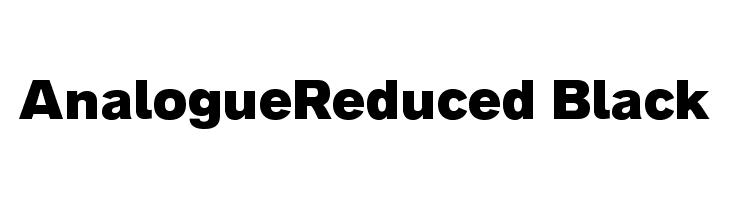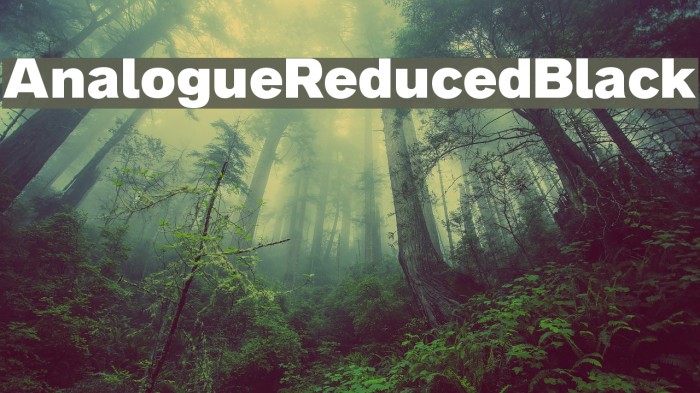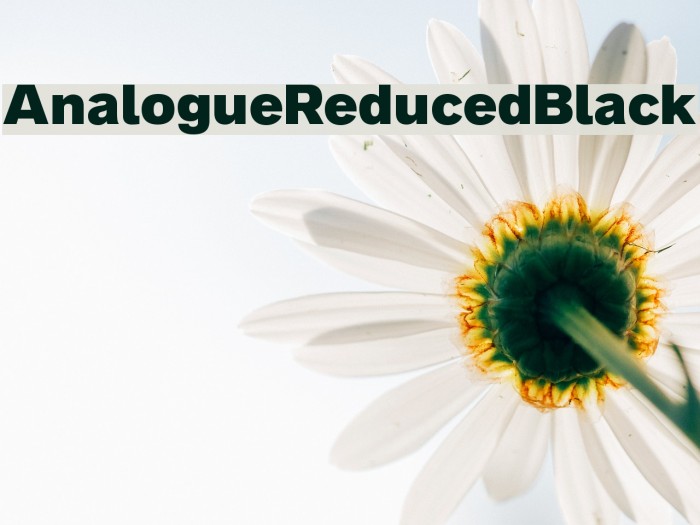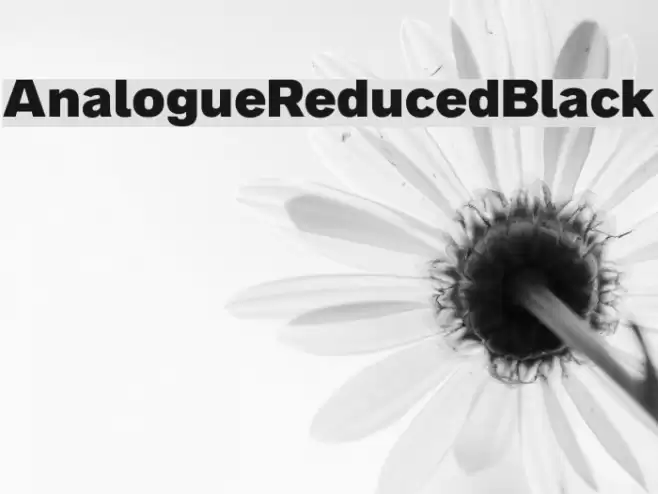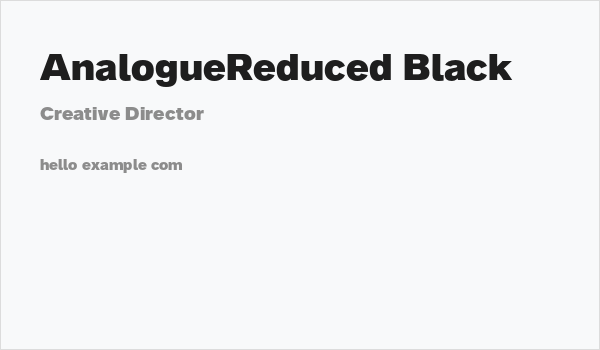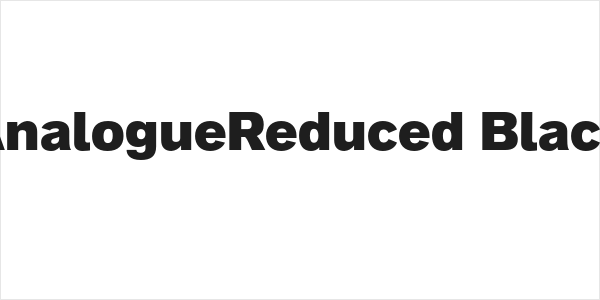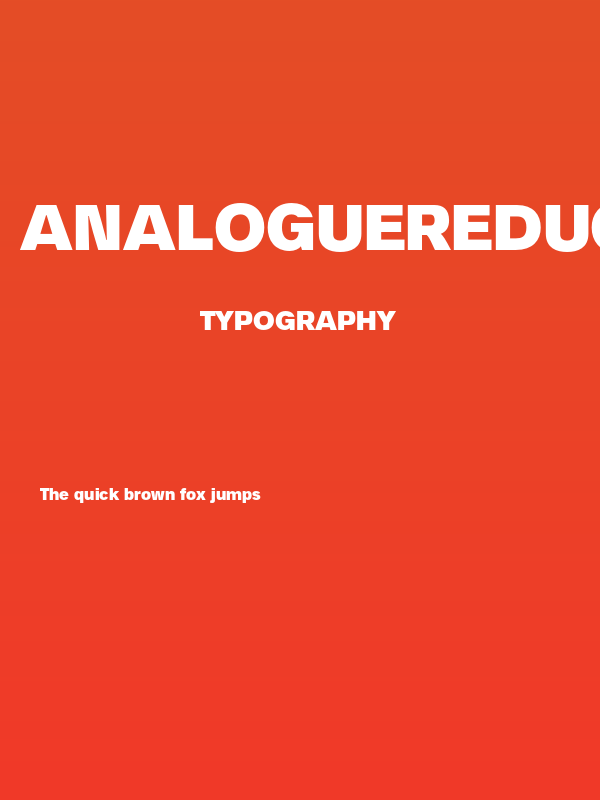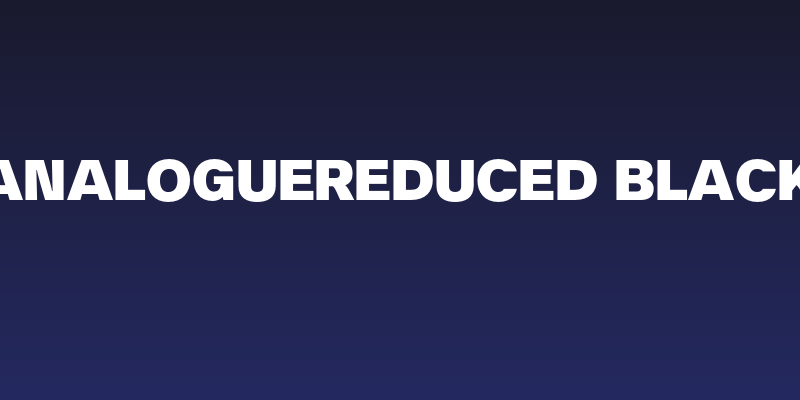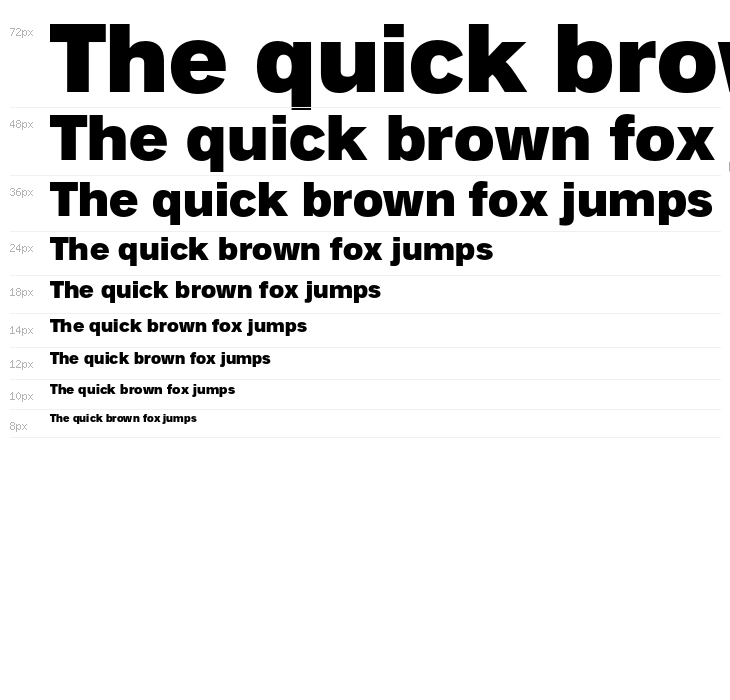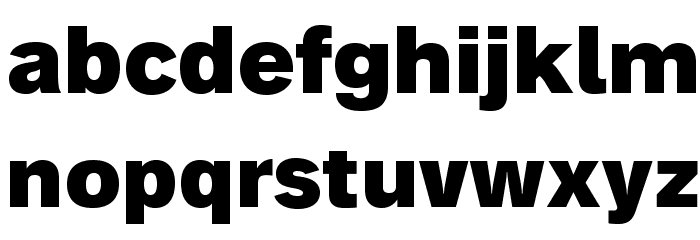
AnalogueReduced-Black Font
AnalogueReduced-Black Description
This font features bold, strong characters with a modern and impactful design. The uppercase and lowercase letters are uniformly bold, creating a sense of power and authority. The strokes are thick and consistent, providing a high contrast that enhances readability and visual impact. The characters are well-spaced, ensuring clarity and legibility even at smaller sizes. This font's robust appearance makes it suitable for attention-grabbing headlines and titles. The overall style is contemporary, with a clean and straightforward aesthetic that avoids unnecessary embellishments.
| Proposed Projects | Ideal for headlines, posters, branding, and advertising materials where a strong presence is needed. |